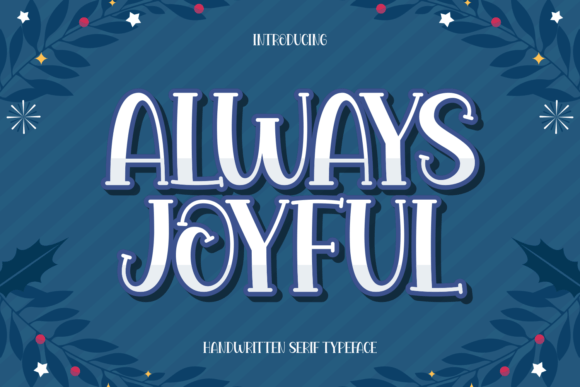
Introducing Always Joyful Font: The Perfect Choice for Adding Warmth and Personality to Your Text
In the world of typography, fonts play a crucial role in conveying the tone and mood of a message. When it comes to creating content that resonates with your audience, selecting the right font is essential. If you’re looking for a font that exudes warmth, personality, and joy, look no further than the Always Joyful Font. This delightful serif handwritten font is designed to bring a touch of happiness and charm to your text, making it perfect for a wide range of projects.
The Characteristics of Always Joyful Font
Always Joyful is a serif handwritten font that boasts charming and graceful strokes. Its unique design makes it stand out from other fonts, adding a touch of personality to any text. The font’s warm and inviting feel makes it perfect for crafting invitations, heartfelt messages, and creative designs. Whether you’re looking to create a sense of joy, happiness, or playfulness, Always Joyful is the perfect choice.
The Benefits of Using Always Joyful Font
So, why choose Always Joyful Font for your next project? Here are just a few benefits of using this delightful font:
- Warmth and Personality: Always Joyful adds a touch of warmth and personality to your text, making it perfect for creating content that resonates with your audience.
- Joyful and Inviting Feel: The font’s charming and graceful strokes create a joyful and inviting feel, making it perfect for crafting invitations, messages, and designs that aim to delight.
- Versatility: Always Joyful is a versatile font that can be used for a wide range of projects, from formal invitations to creative designs.
- Easy to Read: The font’s clear and legible design makes it easy to read, ensuring that your message is conveyed effectively.
Uses of Always Joyful Font
Always Joyful Font is perfect for a wide range of projects, including:
- Invitations: Whether you’re planning a wedding, birthday party, or baby shower, Always Joyful is the perfect choice for creating beautiful and inviting invitations.
- Heartfelt Messages: The font’s warm and inviting feel makes it perfect for crafting heartfelt messages, such as love letters, thank-you notes, and get-well cards.
- Creative Designs: Always Joyful is a great choice for creative designs, such as posters, flyers, and brochures, where you want to add a touch of personality and joy.
- Digital Content: The font is also perfect for digital content, such as blog posts, social media graphics, and email newsletters, where you want to add a touch of warmth and personality to your text.
Tips for Using Always Joyful Font
Here are a few tips for using Always Joyful Font effectively:
- Use it for Headings and Titles: Always Joyful is perfect for headings and titles, where you want to add a touch of personality and joy.
- Pair it with Other Fonts: The font pairs well with other fonts, such as sans-serif fonts, to create a beautiful and harmonious design.
- Experiment with Colors: Always Joyful looks great in a variety of colors, so don’t be afraid to experiment and find the perfect color scheme for your project.
In conclusion, Always Joyful Font is a delightful serif handwritten font that brings a touch of warmth and personality to your text. With its charming and graceful strokes, this font adds a joyful and inviting feel to any project. Whether you’re crafting invitations, heartfelt messages, or creative designs, Always Joyful is the perfect choice for infusing your content with a sense of happiness and charm. So, why not give it a try and see the difference it can make in your next project?
- What is Always Joyful Font? Always Joyful Font is a serif handwritten font designed to bring a touch of warmth and personality to your text.
- What are the benefits of using Always Joyful Font? The font adds a touch of warmth and personality to your text, creates a joyful and inviting feel, and is versatile and easy to read.
- What types of projects is Always Joyful Font suitable for? The font is perfect for invitations, heartfelt messages, creative designs, and digital content.